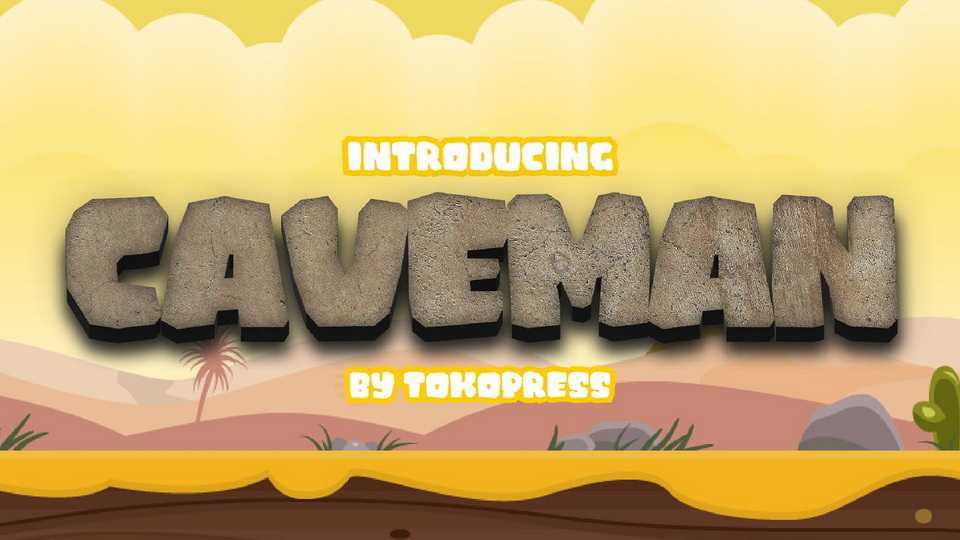
Download Caveman font, a rough bold and blocky prehistoric typeface. Caveman font took shape from the cut-out rock. Suits perfectly for any ancient/ Jurassic era game title, museum poster, children related merchandise, jungle and adventure poster designs, and some road signs at the zoo as well.